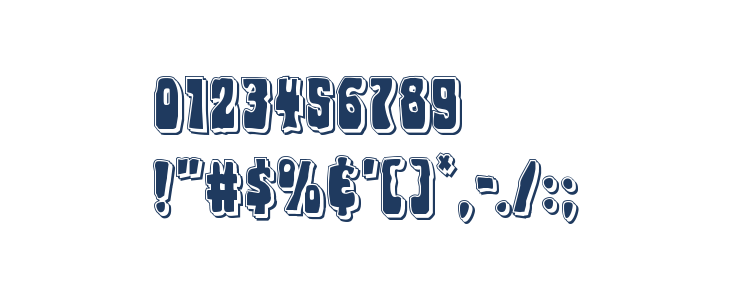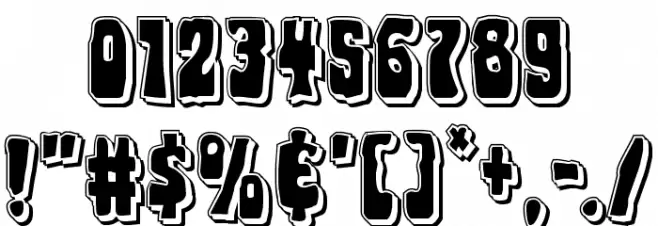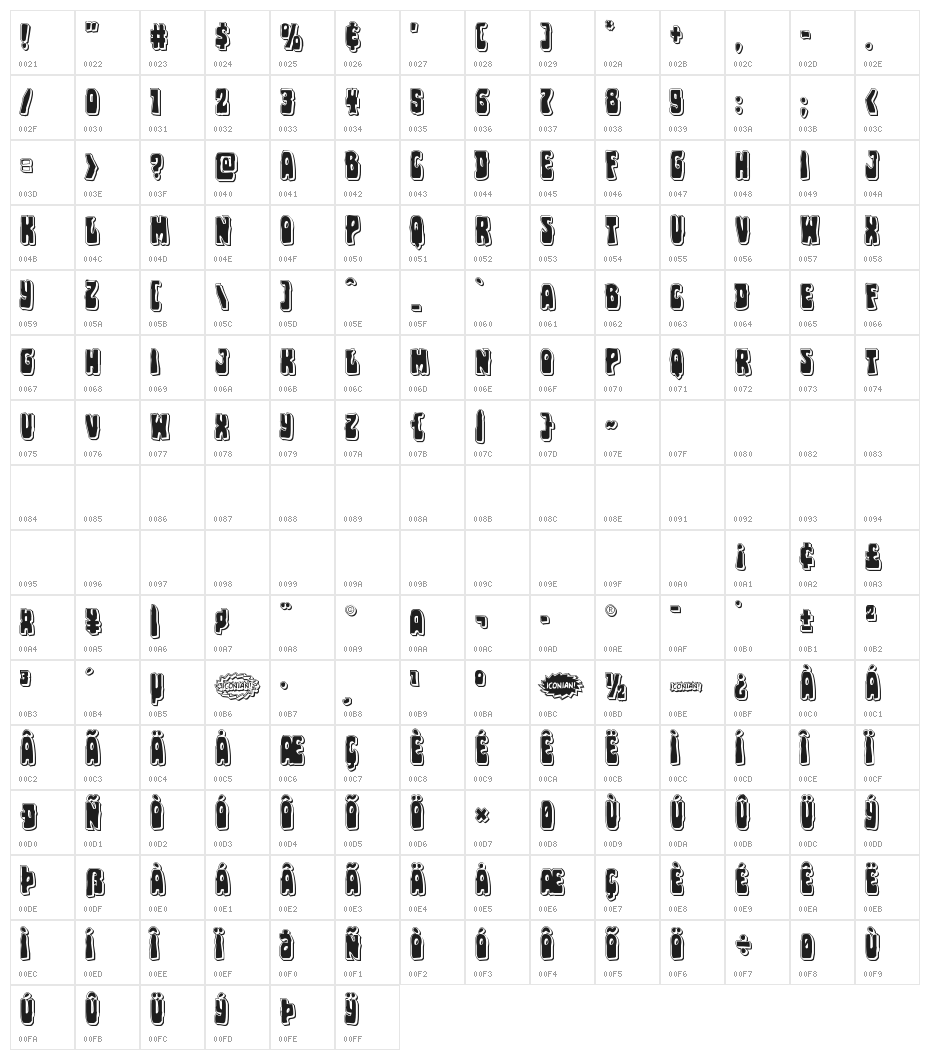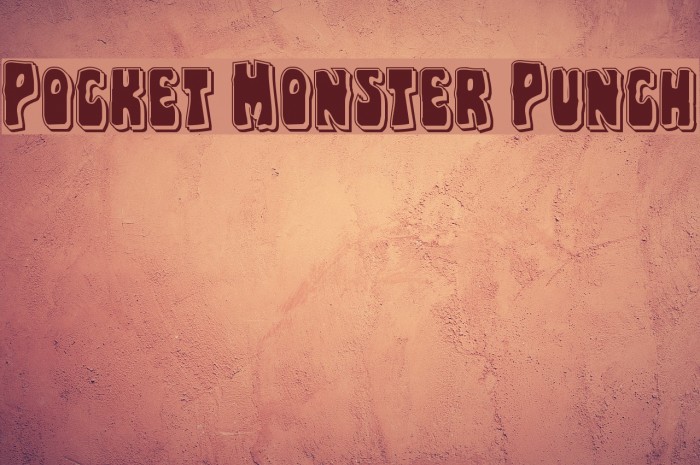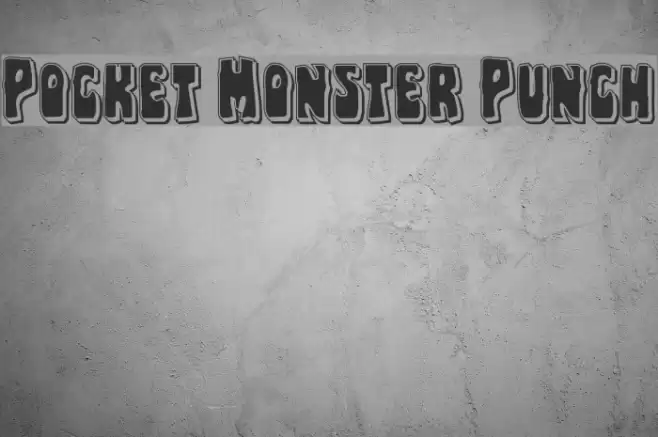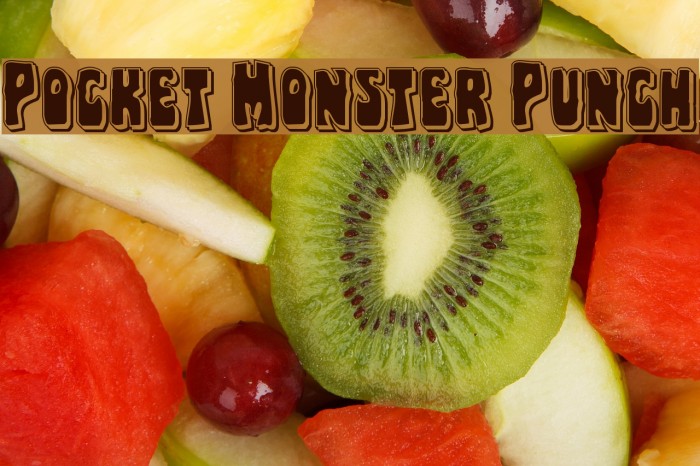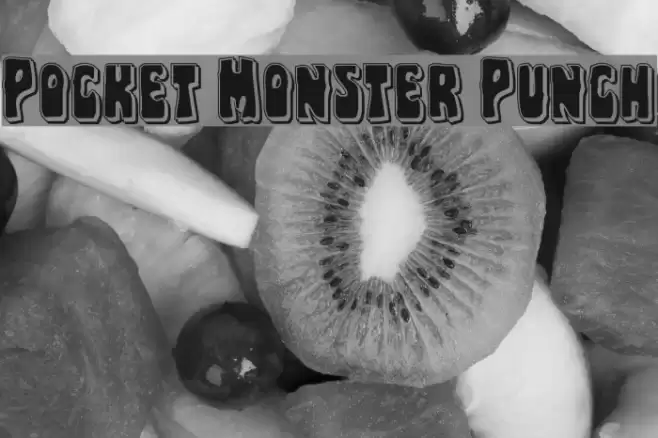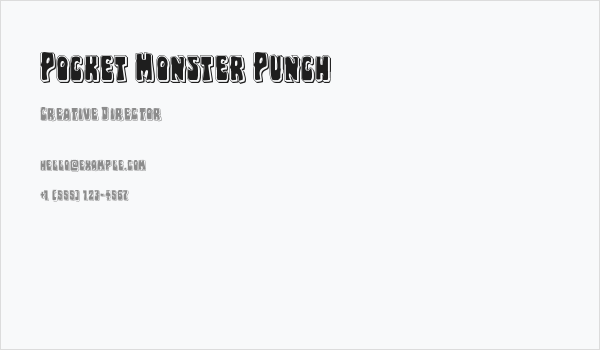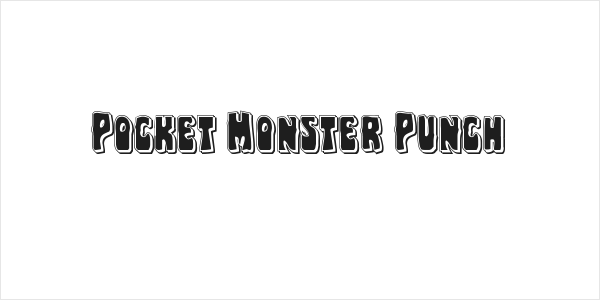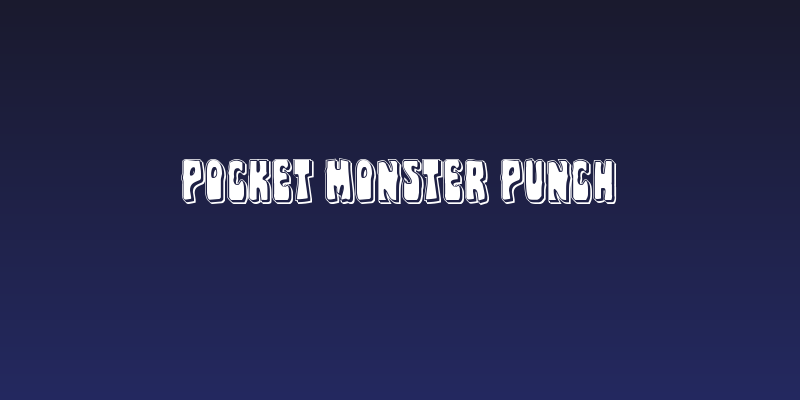
Pocket Monster Punch Font
Pocket Monster Punch Description
This font features a bold and playful style with a strong outline and shadow effect that gives it a three-dimensional appearance. The characters are chunky and have a slightly irregular shape, adding to the whimsical and fun aesthetic. The uppercase and lowercase letters maintain a consistent style, with exaggerated curves and a cartoonish flair. The numbers and special characters follow the same design principles, ensuring a cohesive look across all elements. This font is eye-catching and designed to stand out, making it ideal for creative and dynamic projects.
Overall StylePlayful, Cartoonish, Bold
Proposed ProjectsIdeal for children's book covers, comic titles, video game graphics, and playful branding.